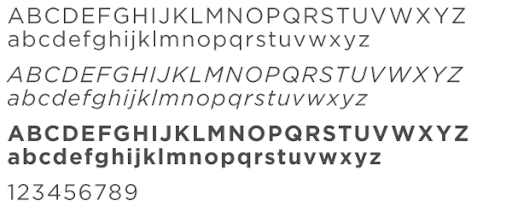
Best Font For Legal Documents Australia
Courts only require that the font is legible. Then read what butterick says about using times new roman in legal documents:
Avoid low contrast or coloured fonts such as blue and red.
Best font for legal documents australia. In this post, we bring you a curated collection of the best fonts you can use with designs related to business and corporate b. Documents created using standard font types such as arial, times new roman or verdana are preferred. As a standard font for legal documents, times new roman (along with arial and helvetica) is one of the most commonly used fonts.
If you’re looking for the perfect font for a logo, business card, stationery, or any kind of branding for a corporate business, you’ve come to the right place. Annapurna ramanathan (querist) 28 december 2011. Especially for dense, complex, challenging documents like legal material, the watchwords are legibility and ease of reading.
Times new roman is best. It is an excellent choice for warnings, deadlines and other important messages you may wish to convey with a custom rubber stamp. According to what i've read, documents designed to be read as hard copy (as opposed to something posted on the web) should use one of the serif fonts.
Times new roman & varanda both are the best in english language font. Similarly to the font style, there’s no “standard” font size for legal documents. (in 2007, microsoft replaced times new roman with a.
Use black font colour where possible. ‘family font’ describes the font variations inside a font family. More importantly, it was long the default font for microsoft word, which itself is the default word processor for lawyers nationwide.
Ad download 100's of fonts, graphic assets, actions, icons & more! Garamond is so obviously the best font that it would be offensive to try to justify it. Sans serif fonts like arial and calibri may look more modern and “classy,” but serif faces are clearer and less ambiguous.
However, this font creates a solid and dark text block, not very suitable for books or novels. This is not a legal query. Arial, helvetica and verdana are the most common.
Time new roman could be a tempting option, since it’s been used for a long time in most newspapers. This is one of the most used fonts by google, and you can see it. Ad download 100's of fonts, graphic assets, actions, icons & more!
Like the previous one, this font consists of a thin, light, regular, medium, bold and black thicknesses with also oblique styles. The font size for federal circuit court documents is 12pt (federal circuit court rule 2.01). Long live garamond, greatest of all the fonts!
Using an overly large font is obnoxious to read and takes up too many pages. I’ll even con­cede that there are sit­u­a­tions, like emails and draft doc­u­ments, where sys­tem fonts are your best option. You should not use more than 3 different fonts in a book and, if you did, at least they should belong to the same font family.
Verdana also scans well so it can be a good choice for legal documents, medical records or invoices. Word makes it easy to add password protection to your documents. It's timeless, elegant, understated and has every detail just right.
Go to file > info > protect document > encrypt with password. That’s large enough for anyone to be able to read and still small enough that you can fit plenty of information on a single page. Fonts that lack these small projecting features are called sans serif (from the french for ‘without’, but usually pronounced ‘sanns’ by printers).
Times new roman is not a font choice so much as the absence of a font choice, like the blackness of deep space is not a color. Verdana is a bright, large font that offers maximum readability. If you con­sider the al­ter­na­tives in this chap­ter and still pre­fer times new ro­man or other sys­tem fonts, i won’t think less of you.
However, there is no statuary guidance. Devajyoti barman (expert) 28 december 2011. Nadeem qureshi (expert) 28 december 2011.
Thanks in (times new roman) font! This font was designed by christian robertson and its type is neogrotesque from sans serif.